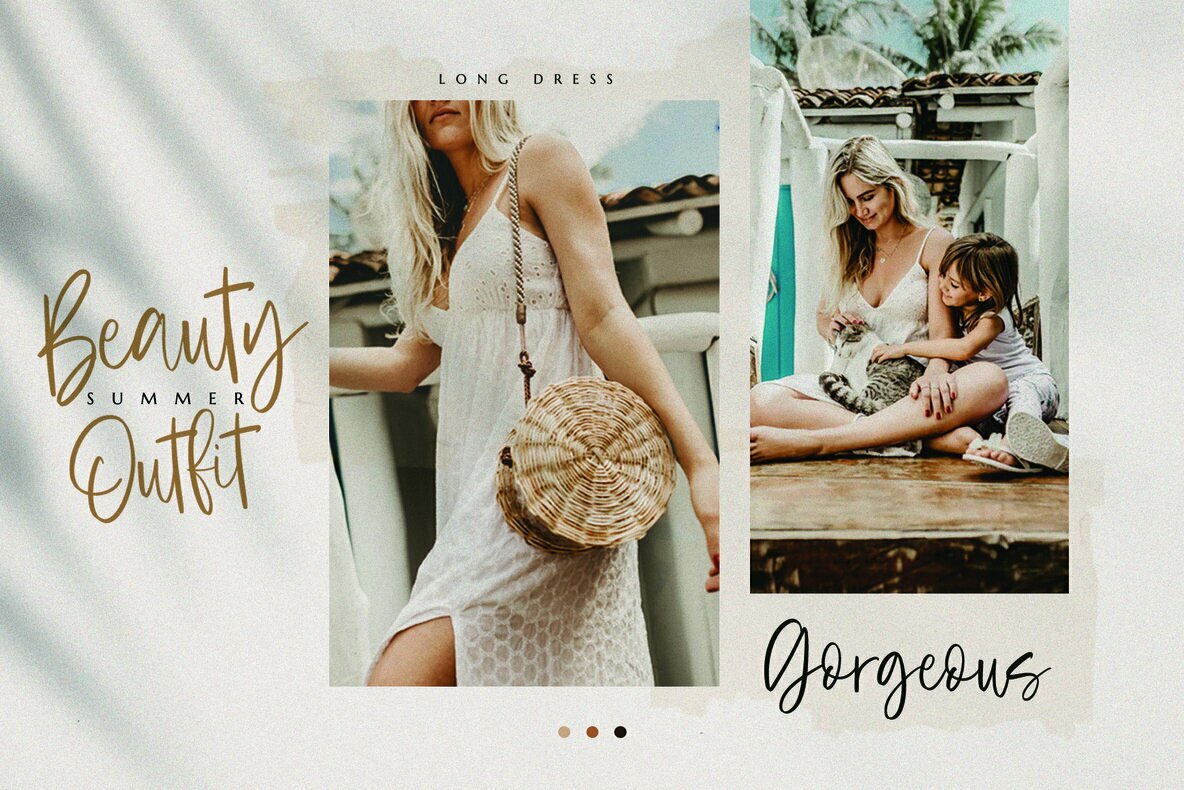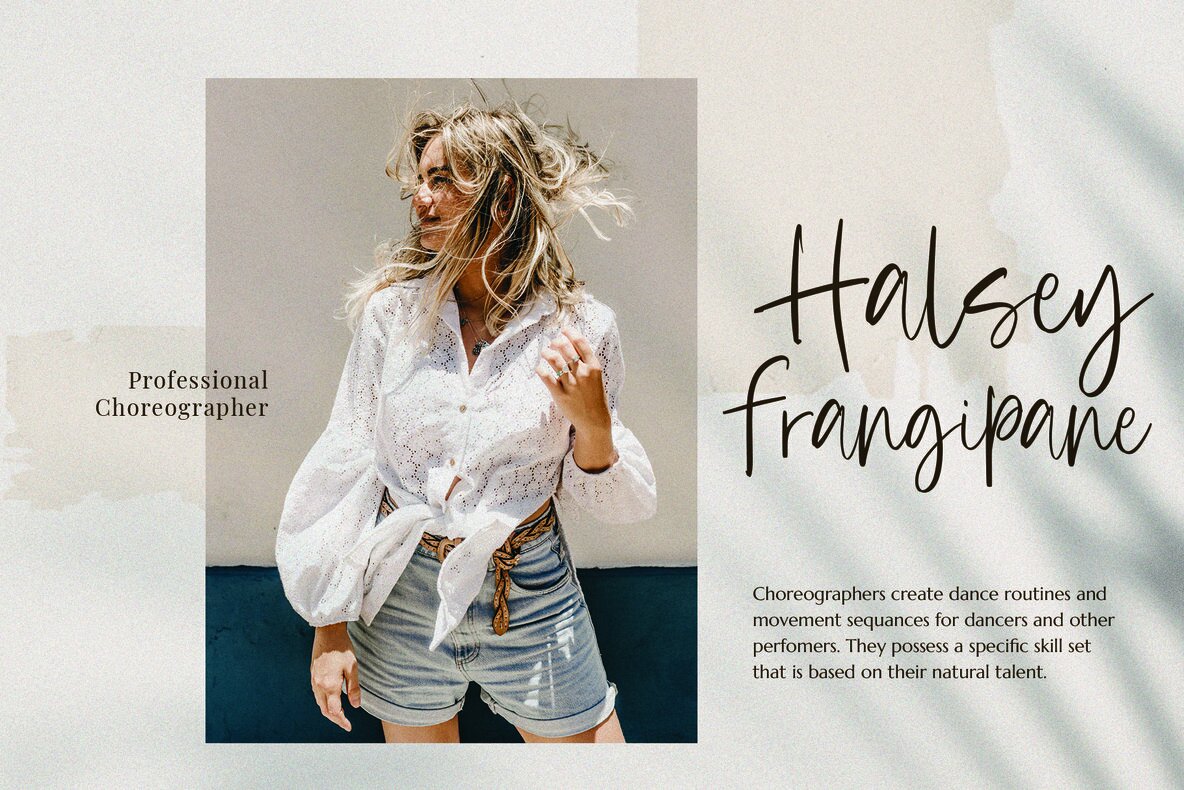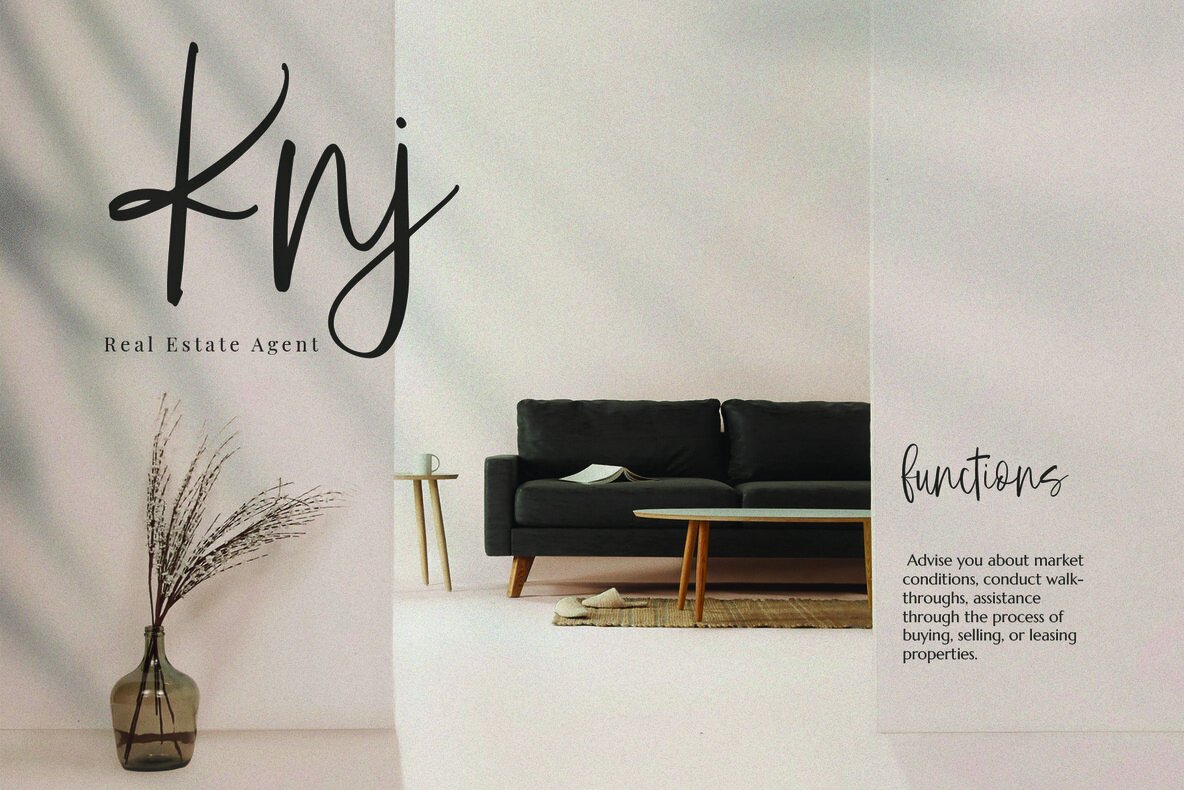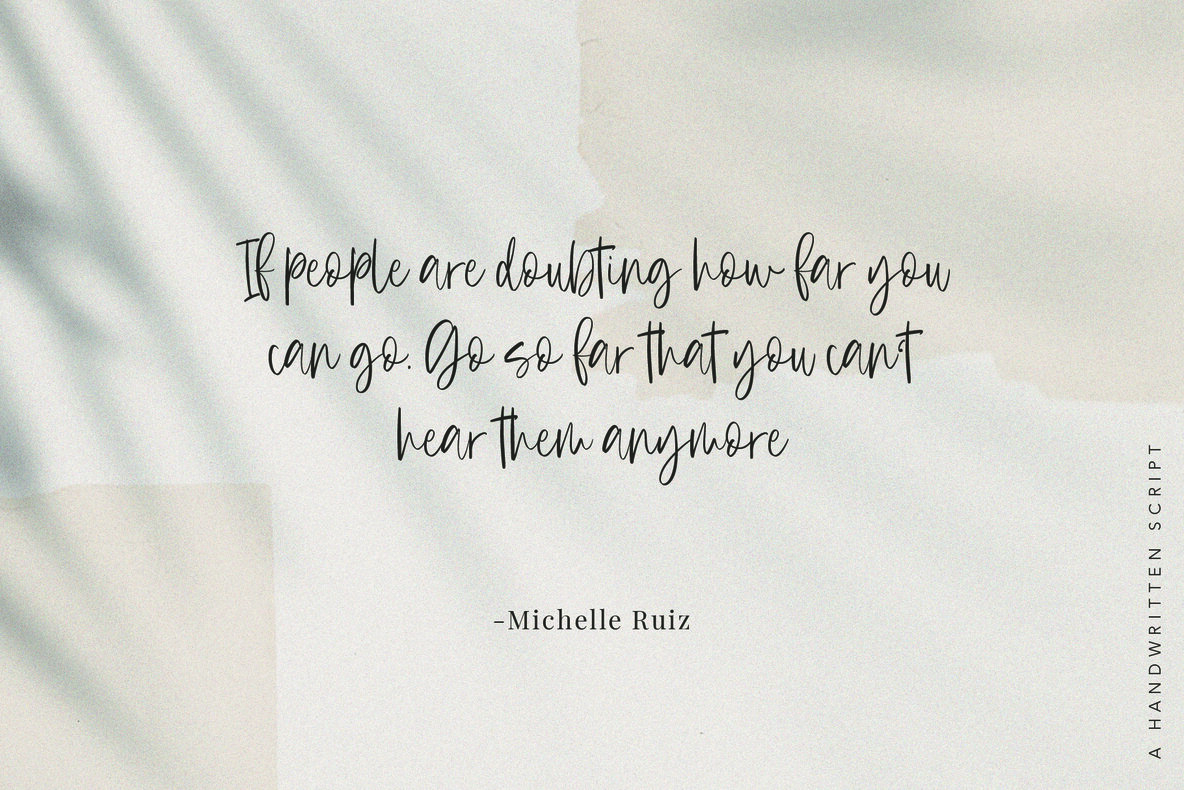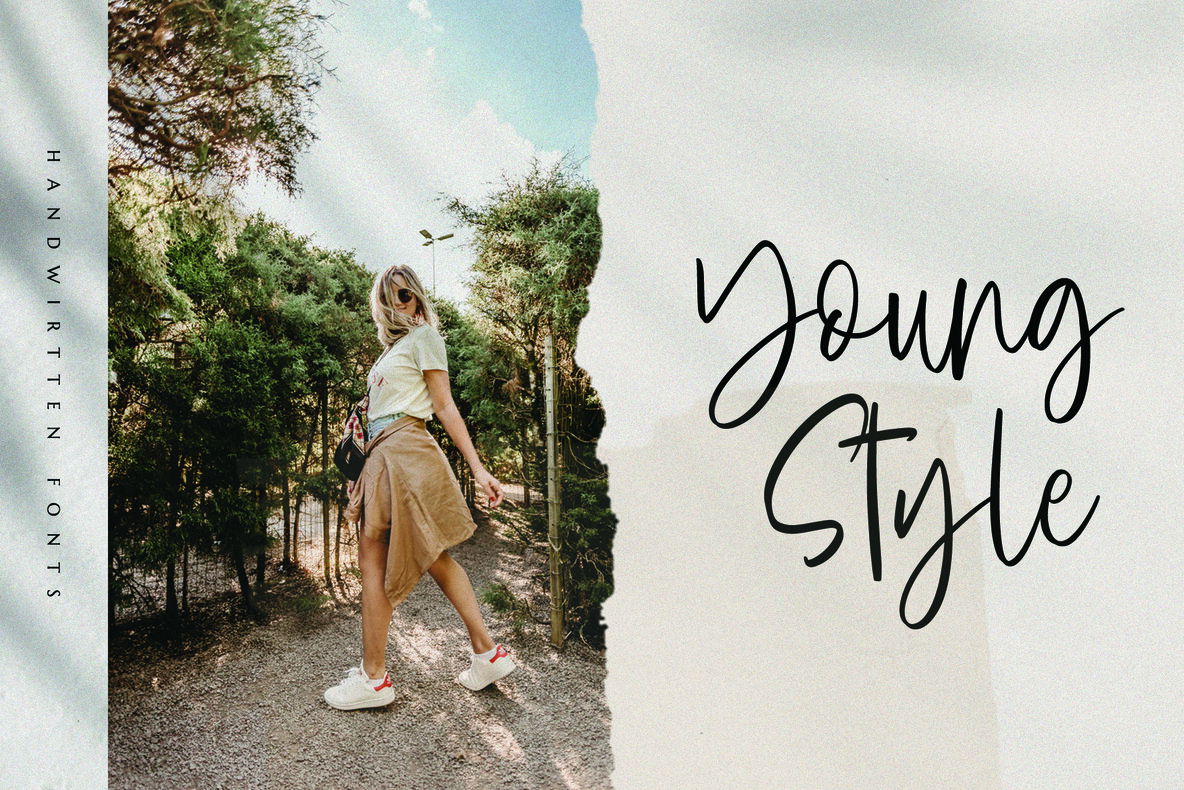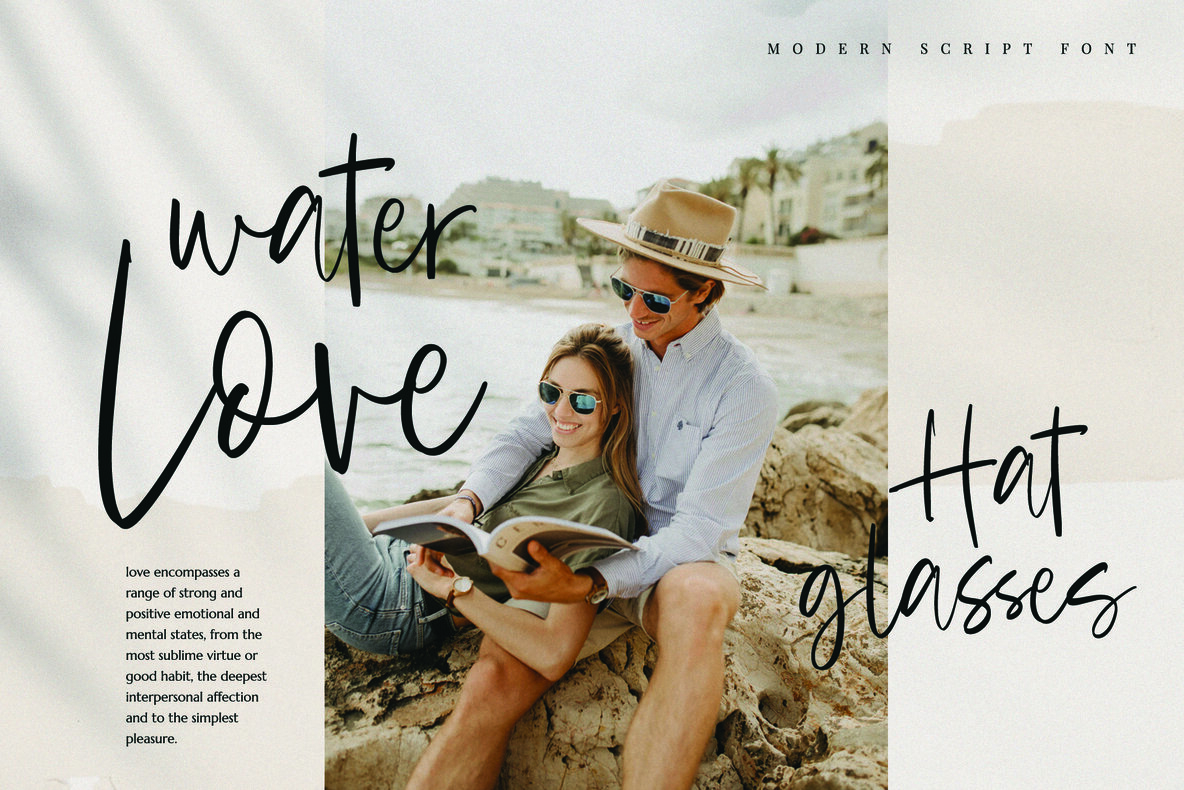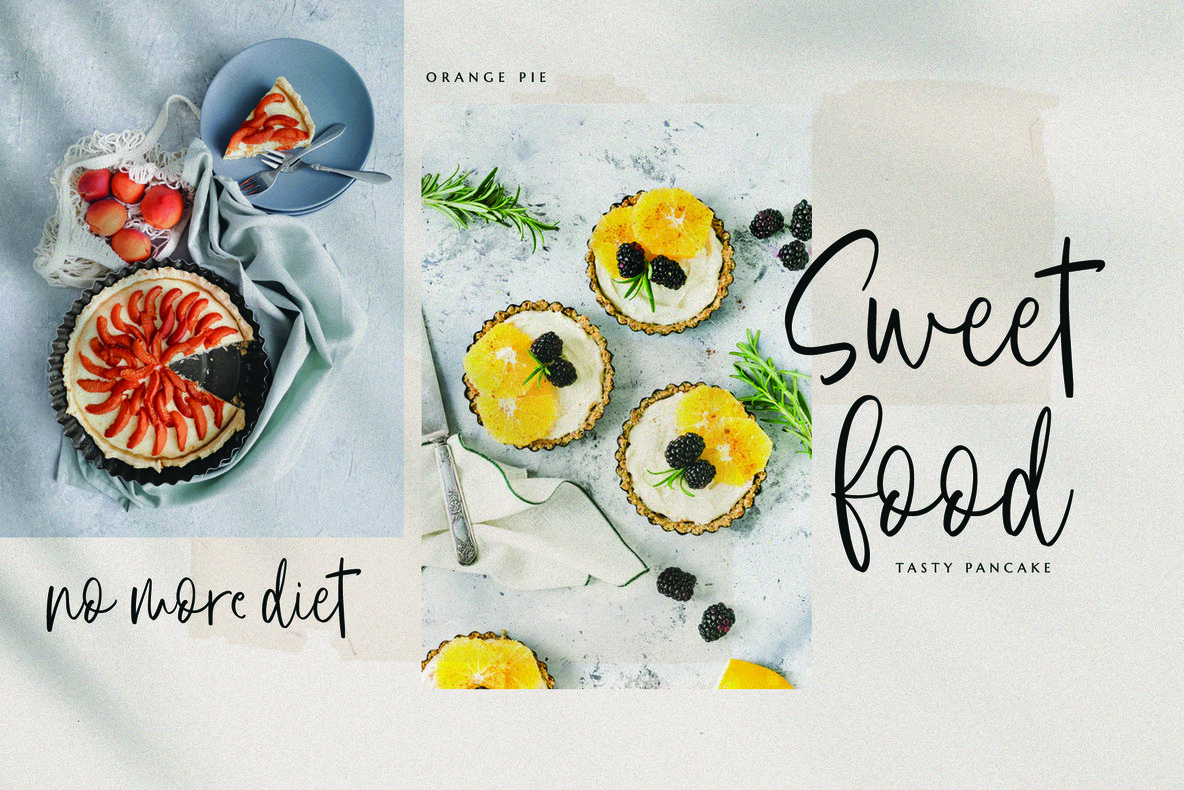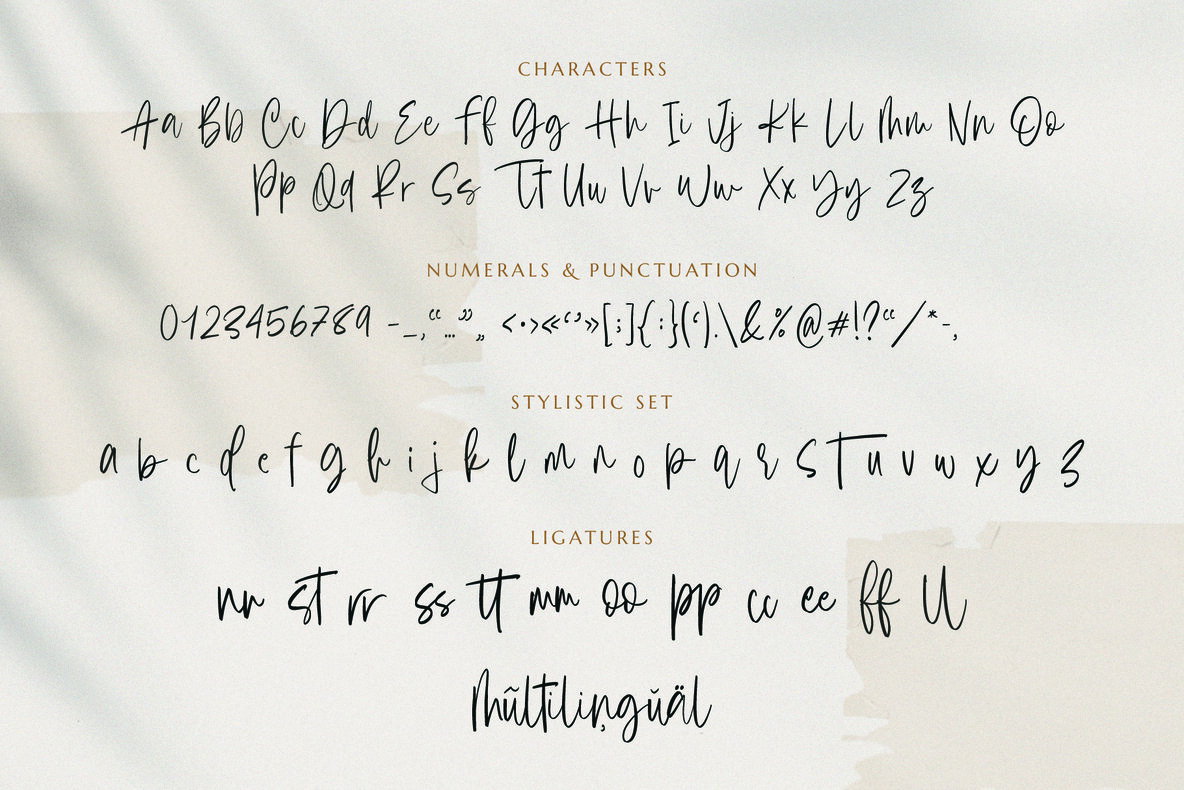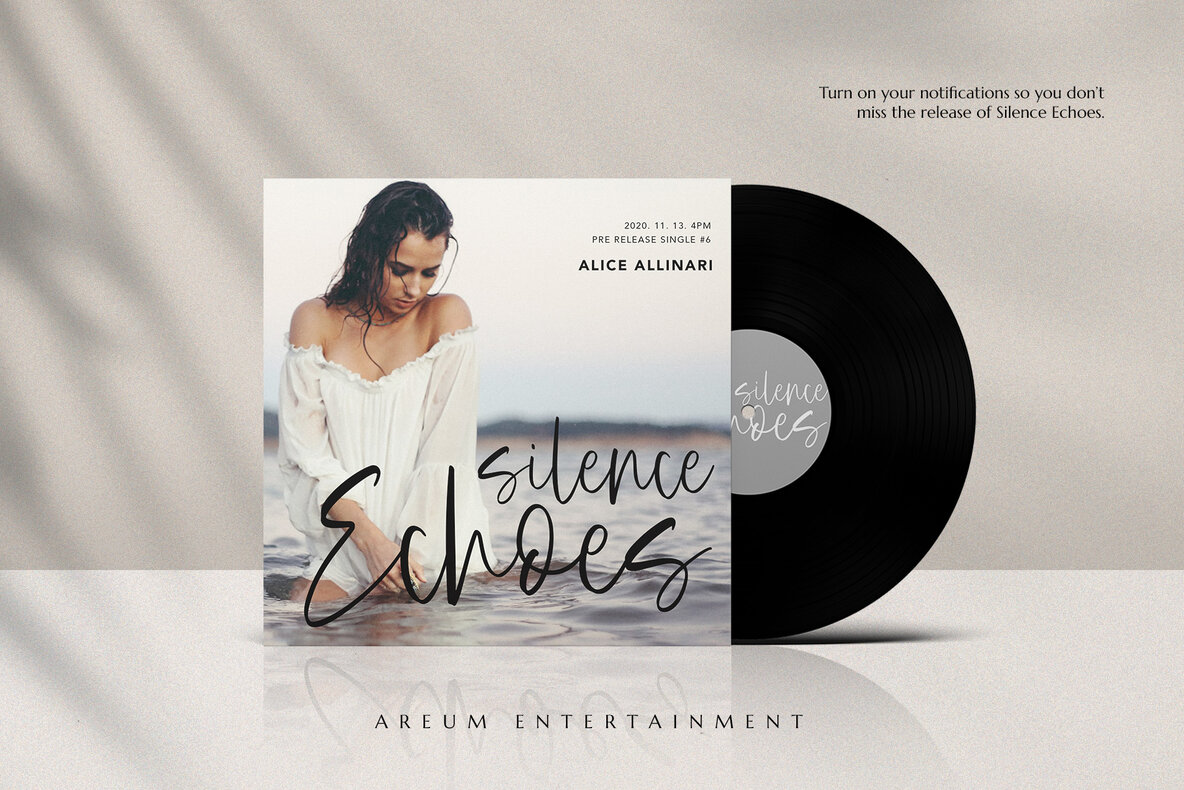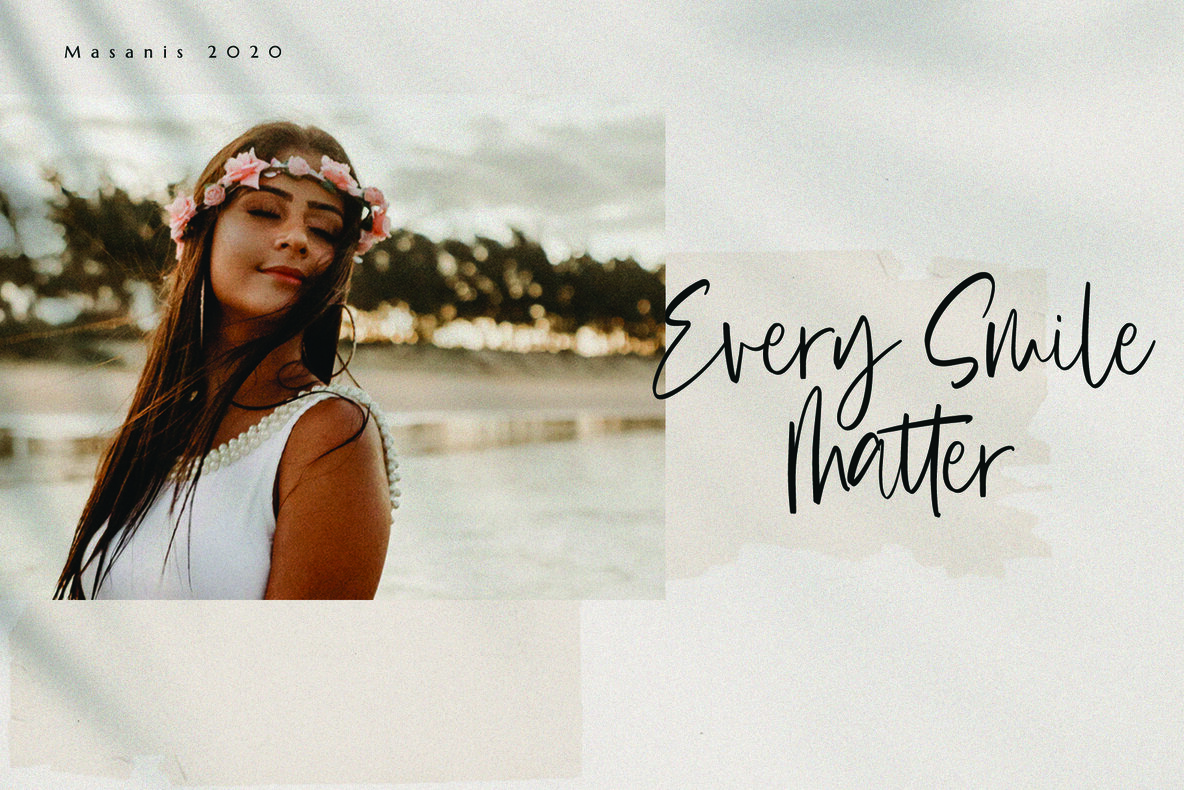
Samoa Crab Font
Samoa Crab - a fresh unique script with a carefree attitude and a playful edge.
Perfect for adding a quirky but casual feel, comes with a large selection of natural-looking ligatures, that form automatically as you type when you have your OpenType features active.
This font is perfect for logo, invitation, stationery, wedding designs, social media posts, advertisements, product packaging, product designs, label, photography, watermark, special events or anything.
- Hundreds of glyphs
- Alternates and Ligatures